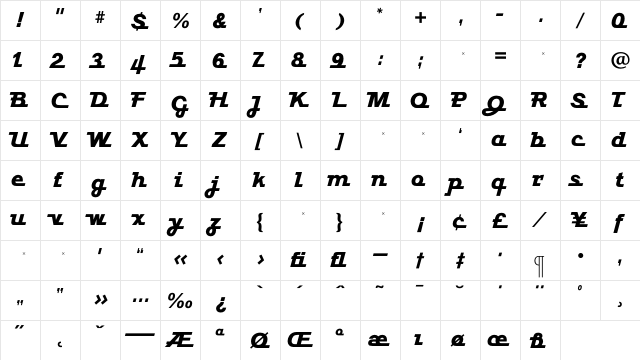
JavelinExtraBold Regular
Design Context for JavelinExtraBold Typeface
JavelinExtraBold is a composed and adaptable typeface that performs quietly and consistently across a wide range of design contexts. Its bold stroke weight gives it real presence on the page.
Pro Tip: Pair JavelinExtraBold with a font of contrasting weight or personality to build a more expressive typographic hierarchy.